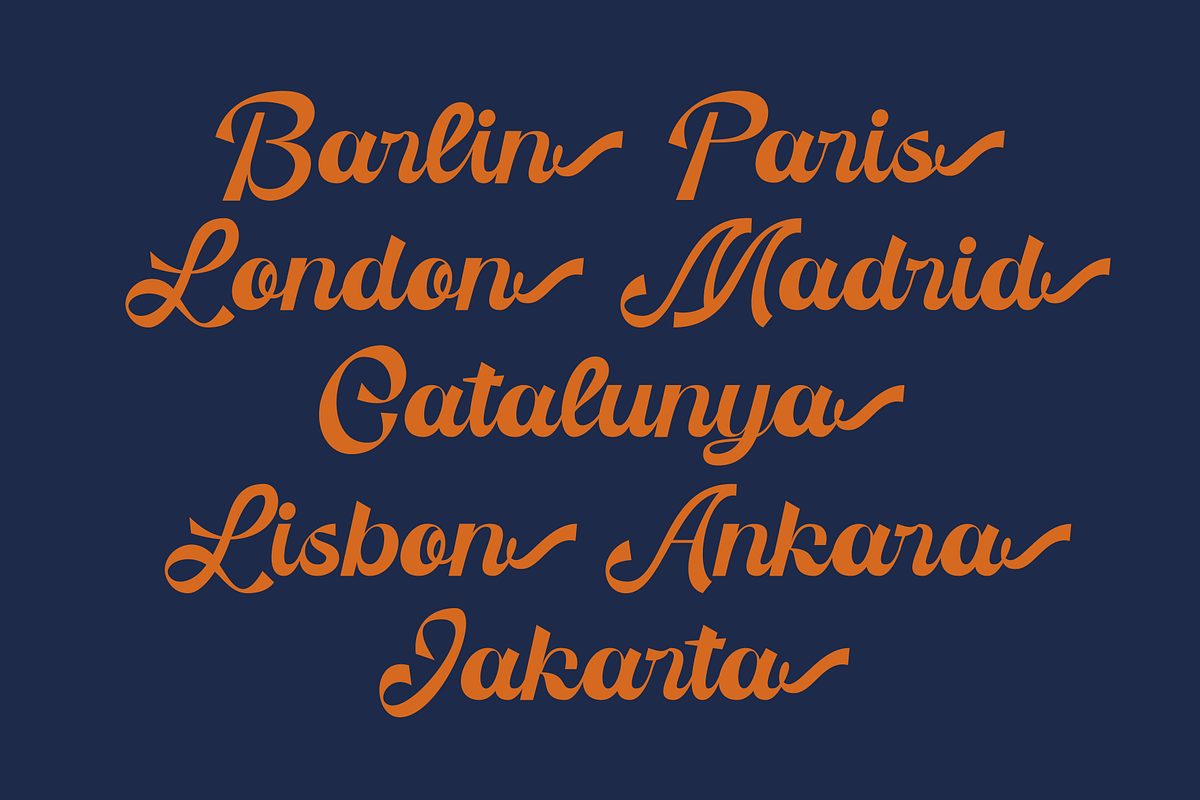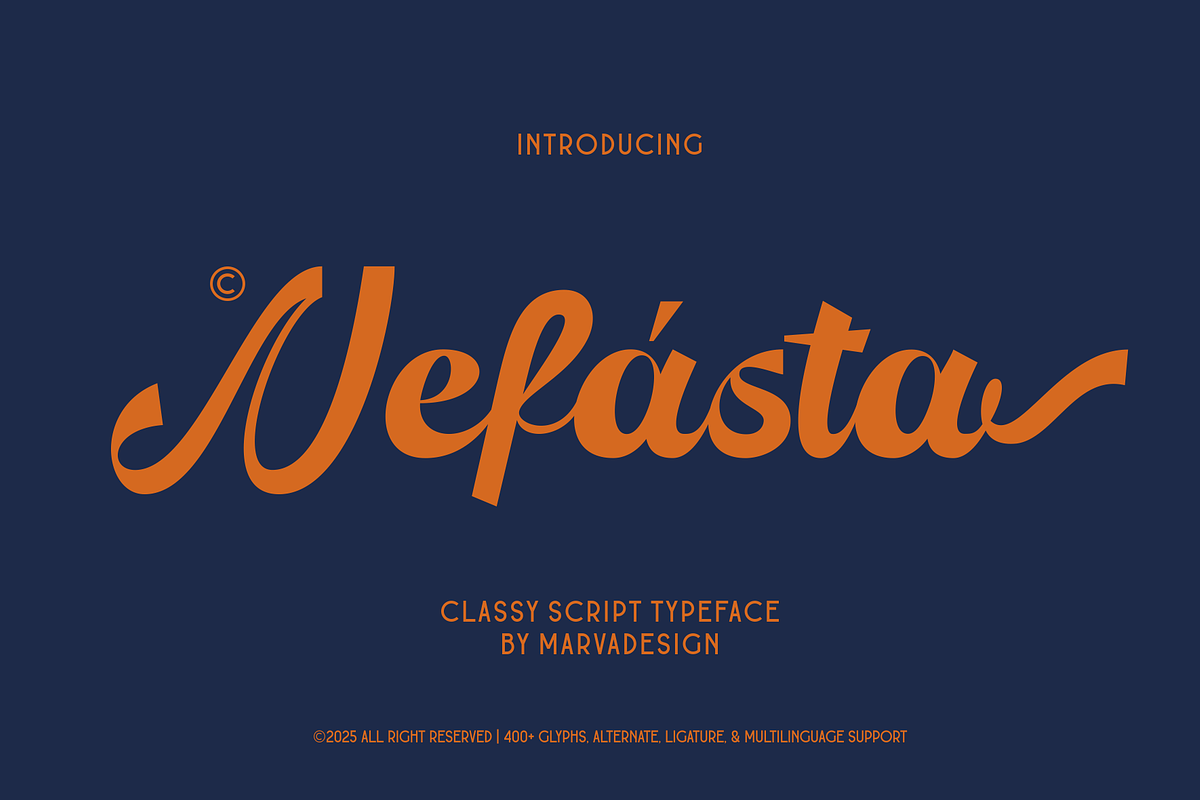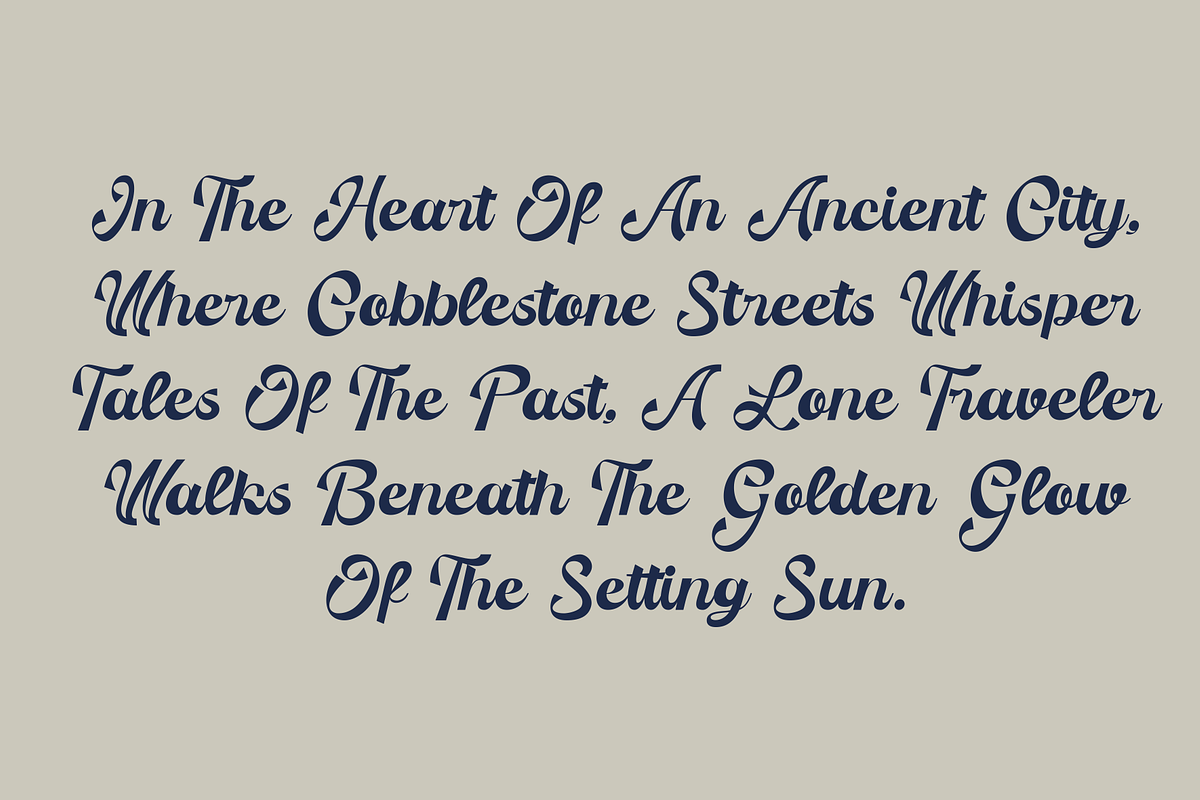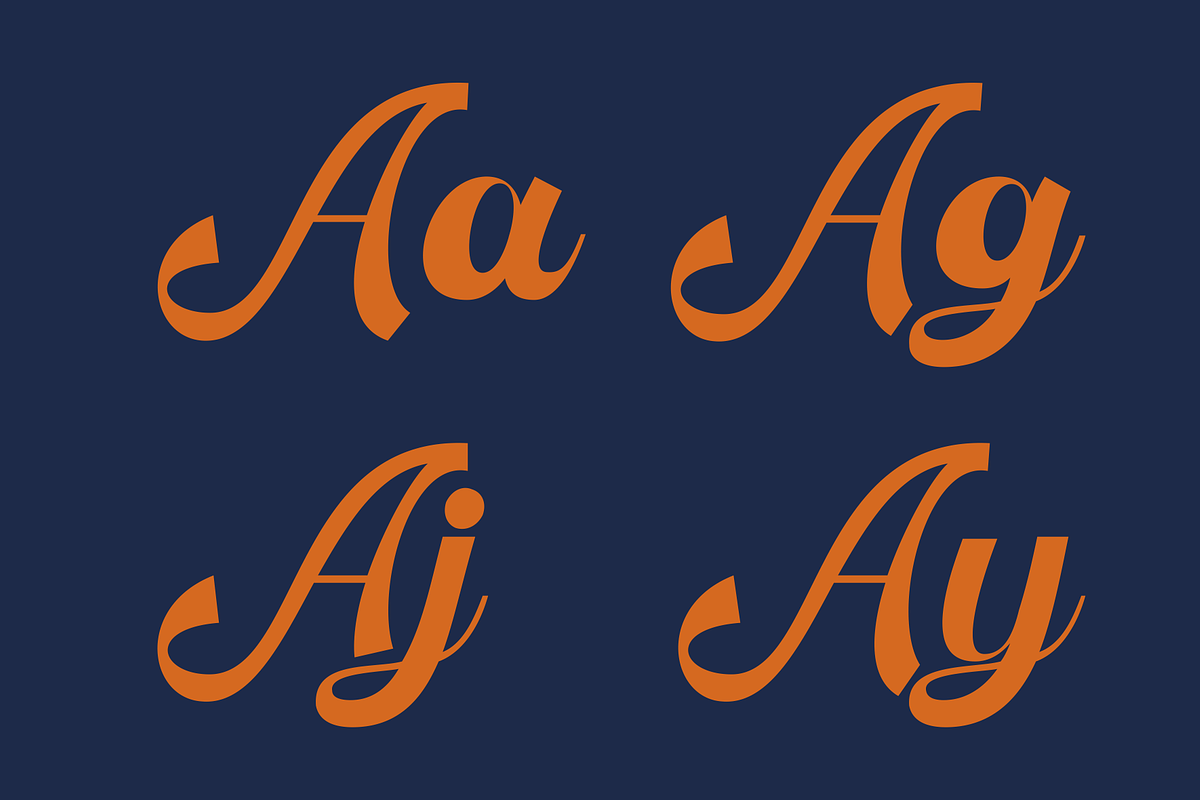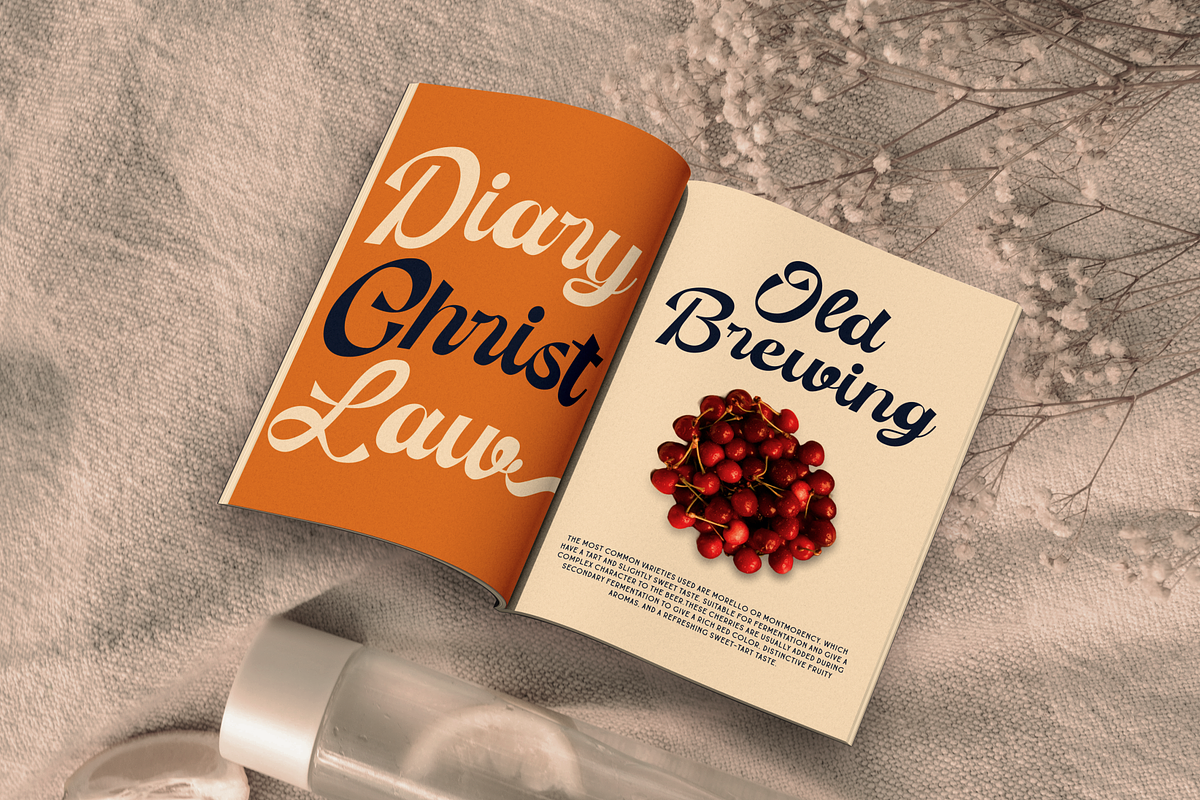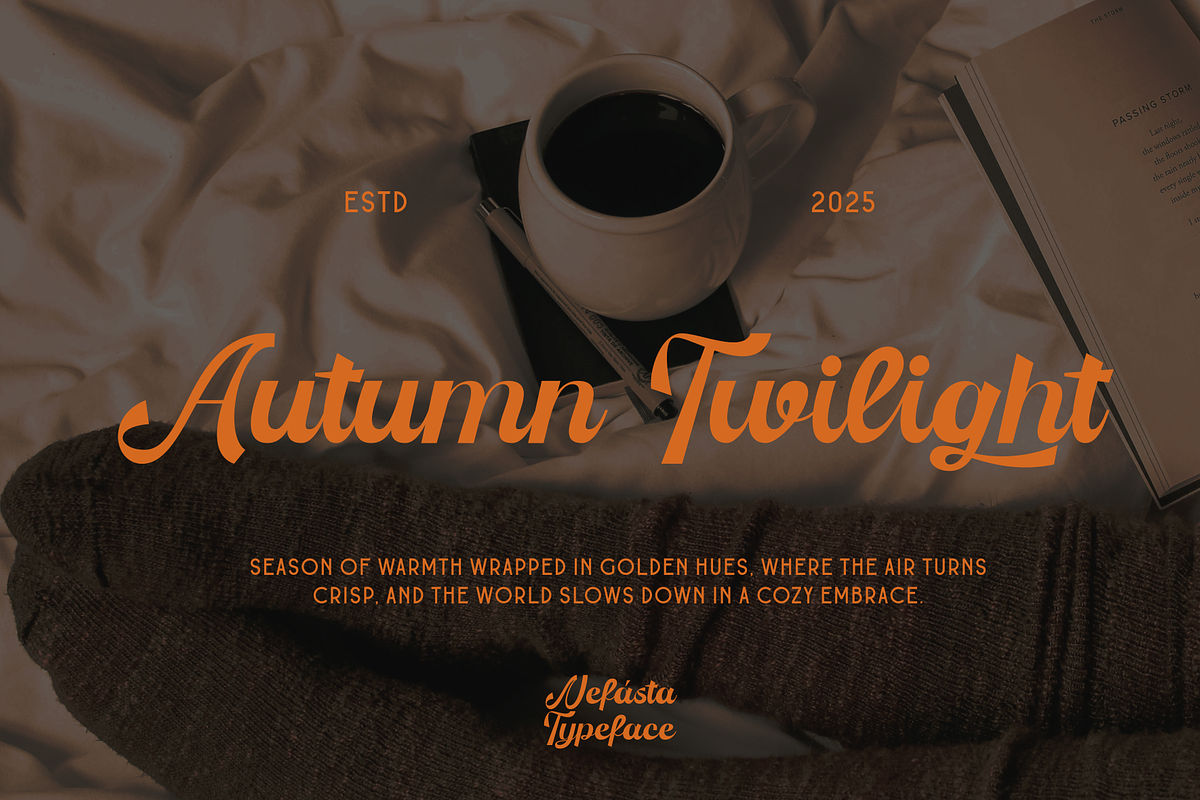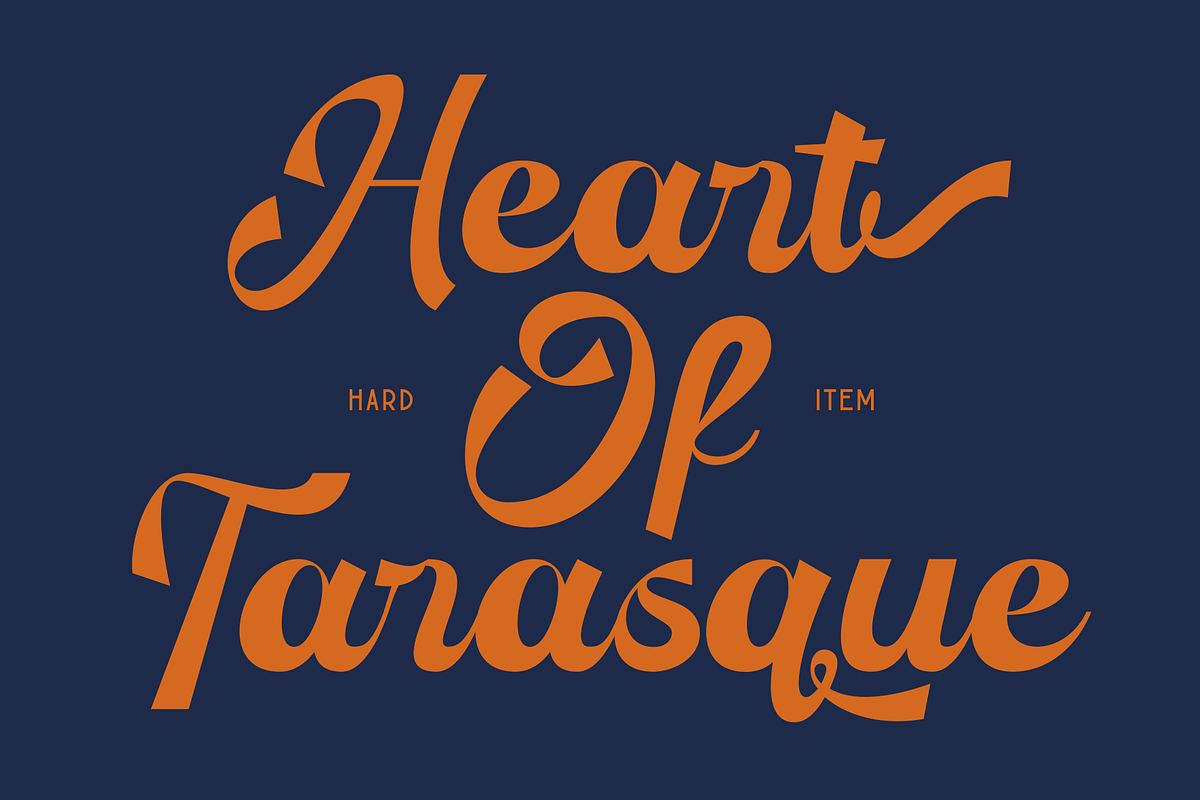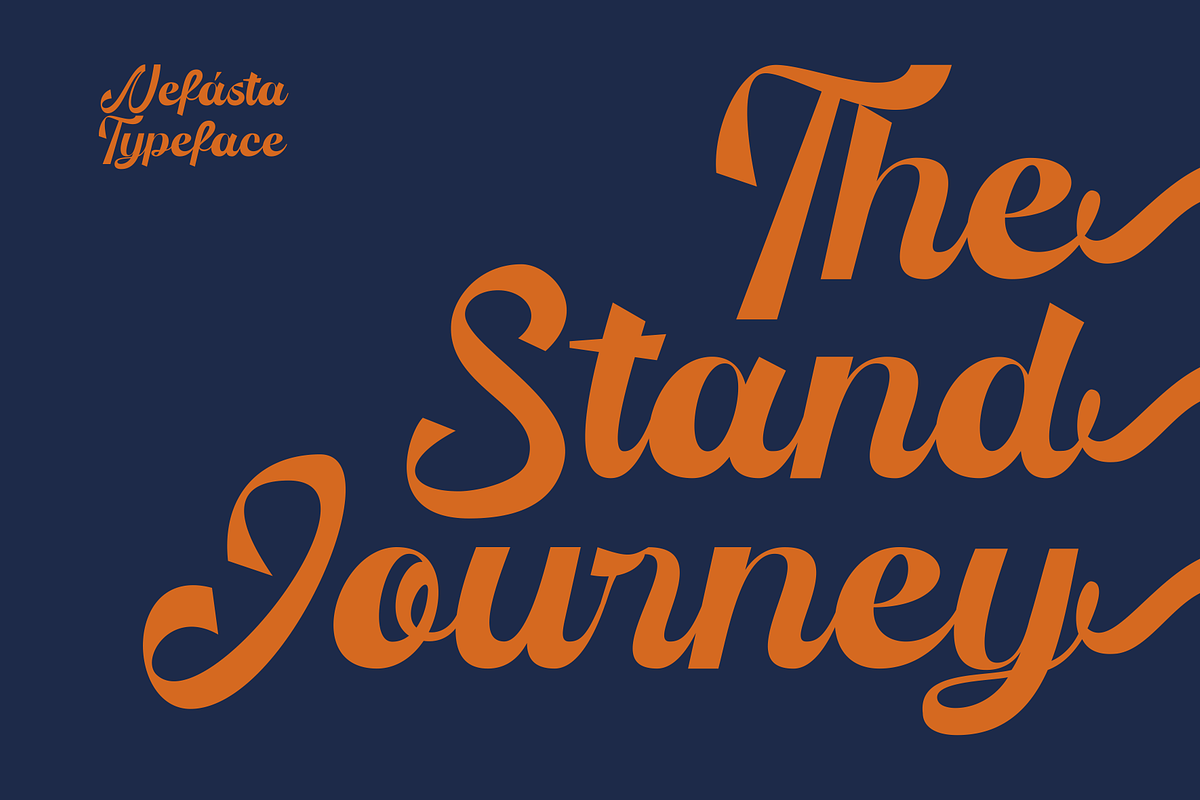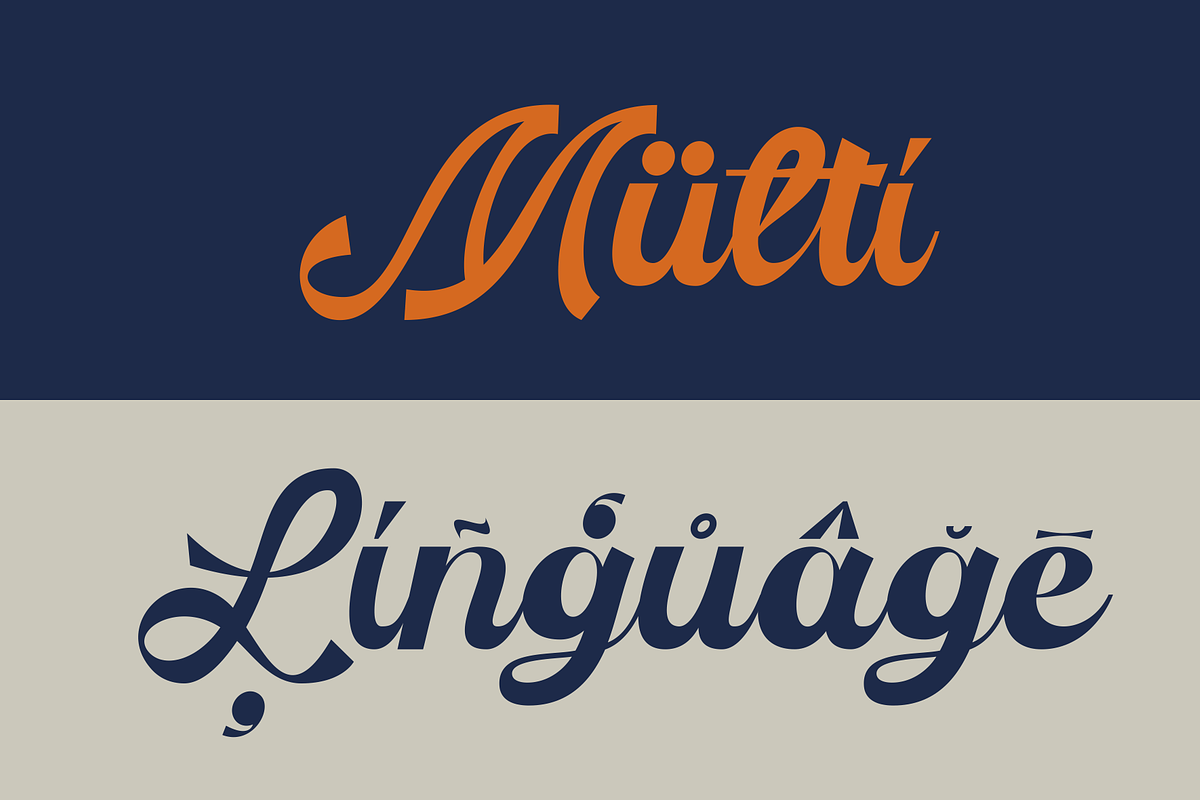
Nefasta - Classy Script Typeface
Introducing the New Script Typeface Nefasta This font exudes elegance and sophistication with flowing cursive strokes and balanced letterforms. It has a classy, high-contrast design with smooth curves and well-crafted ligatures, making it ideal for branding, editorial design, and luxury-themed projects.
The typography stands out with its smooth strokes and alternate glyphs, adding a sense of movement and elegance to every word. The harmonious balance between thick and thin strokes ensures readability while maintaining a stylish artistic appeal. Additionally, the multilingual support and over 400 glyphs in this font provide flexibility for a variety of design needs. Overall, Nefasta is a premium script typeface that combines classic calligraphy influences with a modern touch, making it suitable for logos, invitations, product packaging, and elegant typographic compositions.